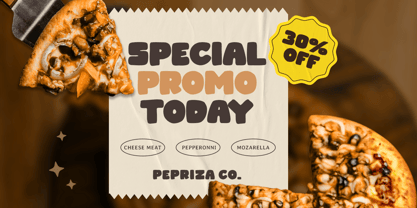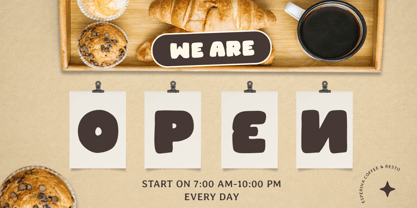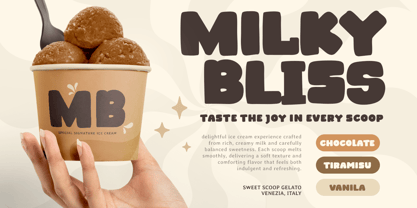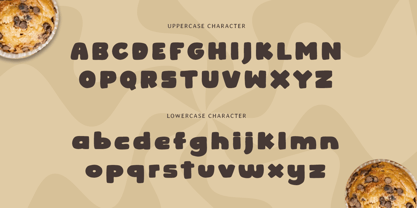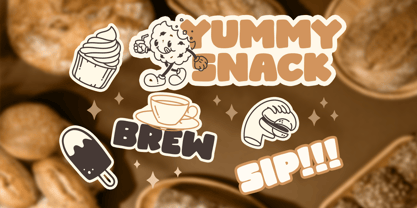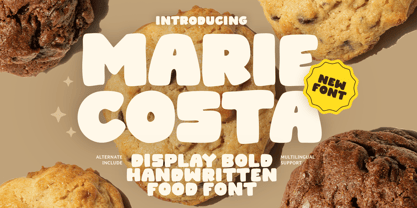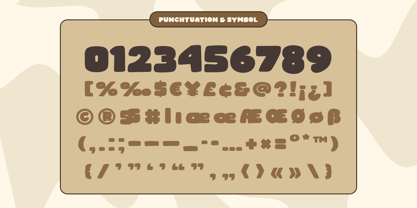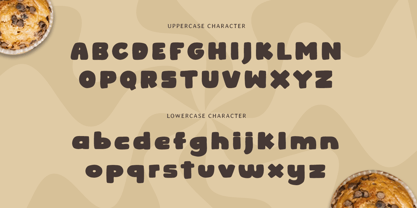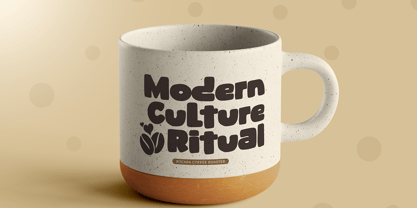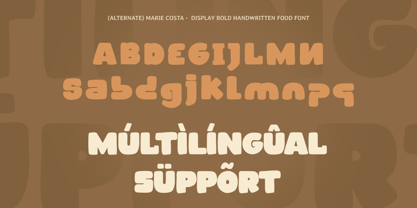
Marie Costa
MARIE COSTA is a bold food font designed to deliver rich personality and irresistible visual appeal to your typography. With thick strokes, smooth curves, and a friendly modern style, this typeface creates an appetizing tone that feels warm, vibrant, and instantly engaging.
Built for food-focused branding, MARIE COSTA works beautifully across restaurant logos, café menus, product packaging, snack labels, posters, signage, social media promotions, and digital marketing visuals. Its bold structure ensures strong readability while adding a delicious character that helps your brand stand out across both print and digital layouts.
Whether you’re launching a food brand, designing menu highlights, creating packaging for snacks or beverages, or building cheerful culinary campaigns, MARIE COSTA provides a bold typographic foundation that makes every headline feel tasty, inviting, and memorable.
Inspiration Behind MARIE COSTA
MARIE COSTA is inspired by modern food packaging and bold culinary branding—where thick shapes and friendly rhythm create a more appetizing and approachable identity. The design focuses on strong visual weight and smooth flow to support food-related projects with a fresh, flavorful, and brand-ready look.
MARIE COSTA Font Features:
• Bold display letterforms with appetizing food-brand character
• Perfect for restaurant branding, menus, and packaging design
• Strong readability for product names and promotional headlines
• Friendly shapes for inviting and delicious typography
• Uppercase, lowercase, numerals, and punctuation included
• OpenType features for polished professional typesetting
Perfect For
• Food logos, restaurant branding, and café identity systems
• Menu headers, specials boards, and promotional graphics
• Packaging, labels, stickers, and snack product branding
• Posters, signage, banners, and in-store marketing visuals
• Social media promotions and food campaign designs
Multilingual Support
Make your food branding look irresistibly bold with MARIE COSTA—a font crafted for delicious, standout visual impact. 🍓✨